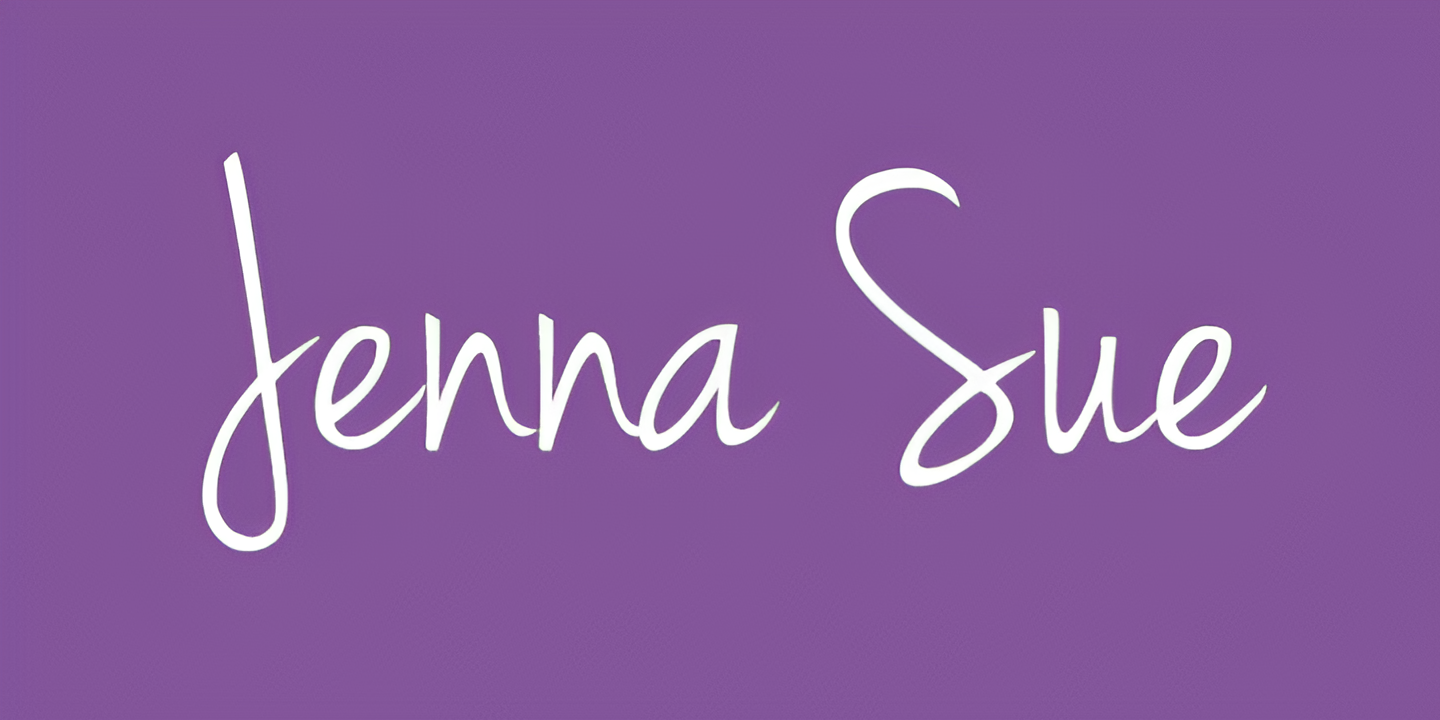
Jenna Sue font family
Discover the Jenna Sue font family, a charming casual handwritten font designed with attention to detail. This font brings a personal touch to your projects, making any text feel warm and inviting.